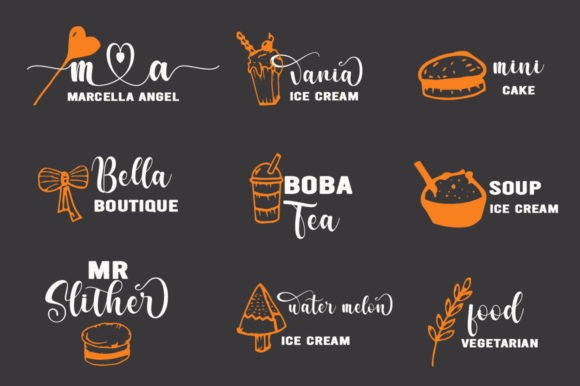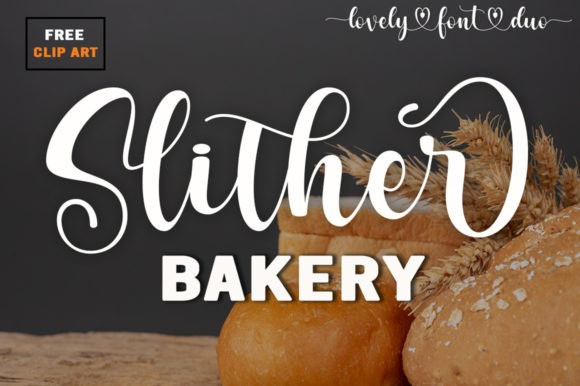
Slither Bakery Font
Slither Bakery Font is a lovely and adaptable duo font (sans serif and script). This font is PUA encoded which means you can access all of the glyphs and swashes with ease!
Fall for its ravishing style and use it to create gorgeous designs!